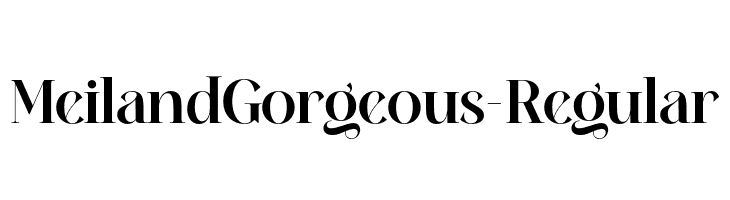
An elegant, high-contrast serif font with sharp serifs and stylish curves.
A bold, calligraphic symbol with dynamic, sweeping strokes.
A modern, italicized font with medium contrast and sleek design.
Cartoonish, expressive font made of illustrated faces.
A lively and elegant handwritten font with fluid, dynamic strokes.
Elegant handwritten script font.
A sleek, semi-condensed, extra light italic font with a modern and elegant style.
A playful, handwritten font with bold, irregular characters and a casual style.